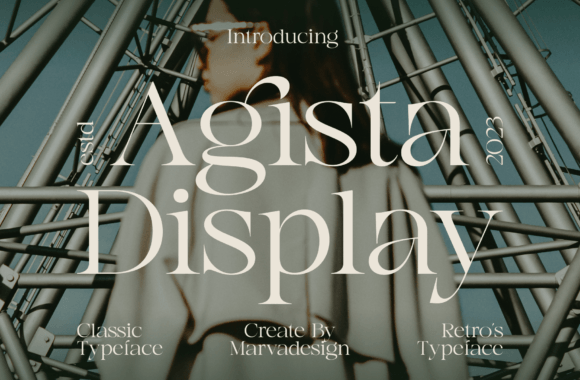
Discover the Timeless Elegance of Agista Display Font
Have you ever stared at a blank page, trying to bring a brand to life? The blank slate can be daunting, but what if you had the perfect tool to spark your creativity? For designers seeking a classic yet modern look, we’re excited to introduce the Agista Display Font, a genuine display font designed to elevate any branding project.
This authentic serif font is perfect for logo design, template creation, product branding, and more. Its versatility makes it an invaluable asset for designers looking to create a lasting impression. With its timeless elegance, the Agista Display Font is sure to bring a touch of sophistication to your designs, setting you apart from the rest.
Agista Display Font Key Features
- Unique Characteristics: This font features a modern, geometric design with a focus on clarity and readability, making it an excellent choice for display typography.
Agista Display Font Review
Overall, I think Agista Display Font is a solid choice for anyone looking for a display font that exudes elegance and sophistication. ✨ The font’s unique combination of geometric shapes and organic curves creates a visually striking effect that’s sure to grab attention. ✨ The font also has a wide range of applications, from fashion to technology, making it a versatile choice for designers.
One of the standout features of Agista Display Font is its high level of customizability. ✨ The font comes with a variety of weights and styles, allowing designers to easily create a unique look that fits their brand’s aesthetic. Additionally, the font is fully scalable, making it easy to use in a variety of contexts, from small text to large headlines.
- Unique and visually striking design
- High level of customizability
- Wide range of applications
- Fully scalable
- May not be suitable for body text due to its display nature
- Some characters may not be fully optimized for certain languages
- Lack of detailed documentation
Overall, I would recommend Agista Display Font to designers who are looking for a stylish and versatile display font. While it may have some limitations, its unique design and high level of customizability make it a great choice for a variety of applications.
Agista Display Font is ideal for use in headings and titles due to its bold and modern design. Use it in:
- Headings and titles in presentations and documents.
- Displaying quotes or important text in social media graphics.
- Creating attention-grabbing headings in advertising materials.